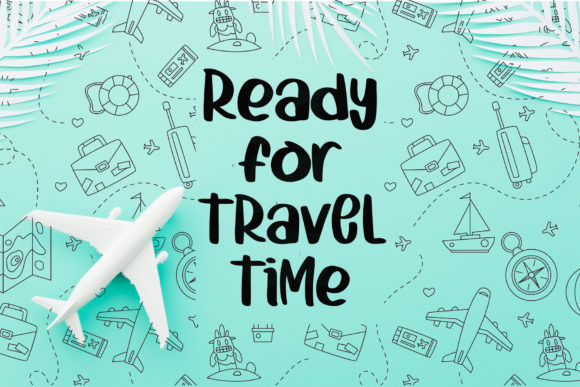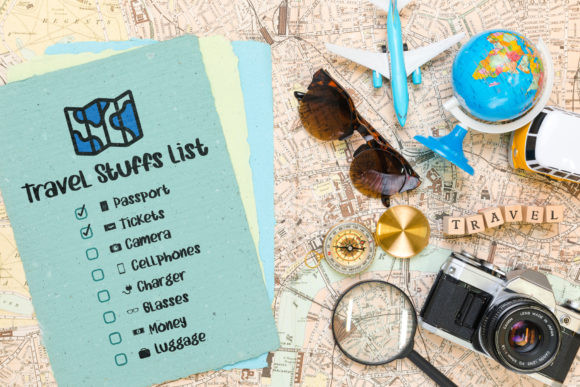
Good Vibes Font
Good Vibes is a simple and thick lettered display font. It has a relaxed and friendly style and it is the ideal choice for creating lovely designs.